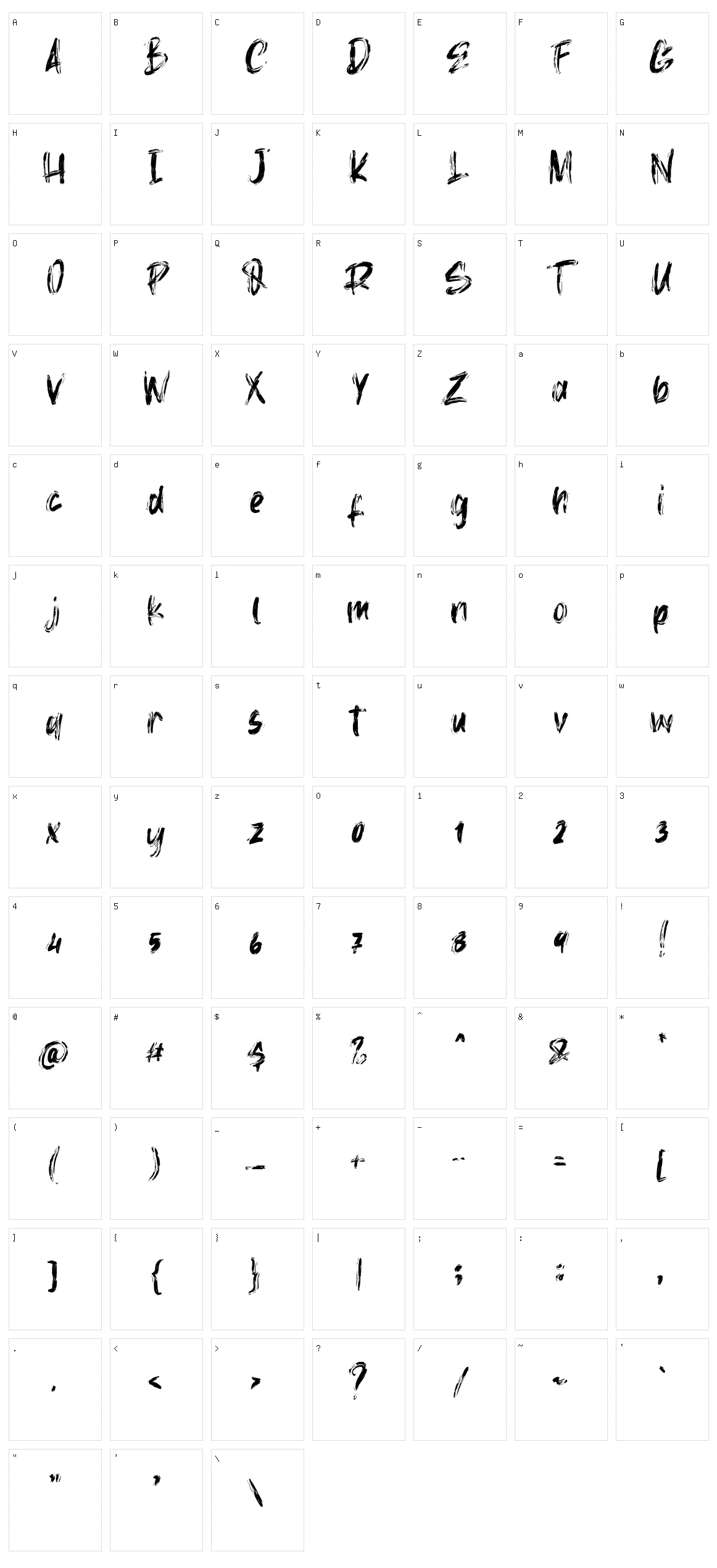
The free font Death Rock is carefully designed by Creatype Studio, showcasing a thoughtful balance of creativity and usability and falls under the Script font style. When you download the ZIP file, it contains only 816.82 KB of font files, making it lightweight and quick to download. Please review the license details below to understand permitted usage and distribution rights. If license information is not available, we recommend using this font for personal projects only or contacting the author directly for commercial usage permissions.